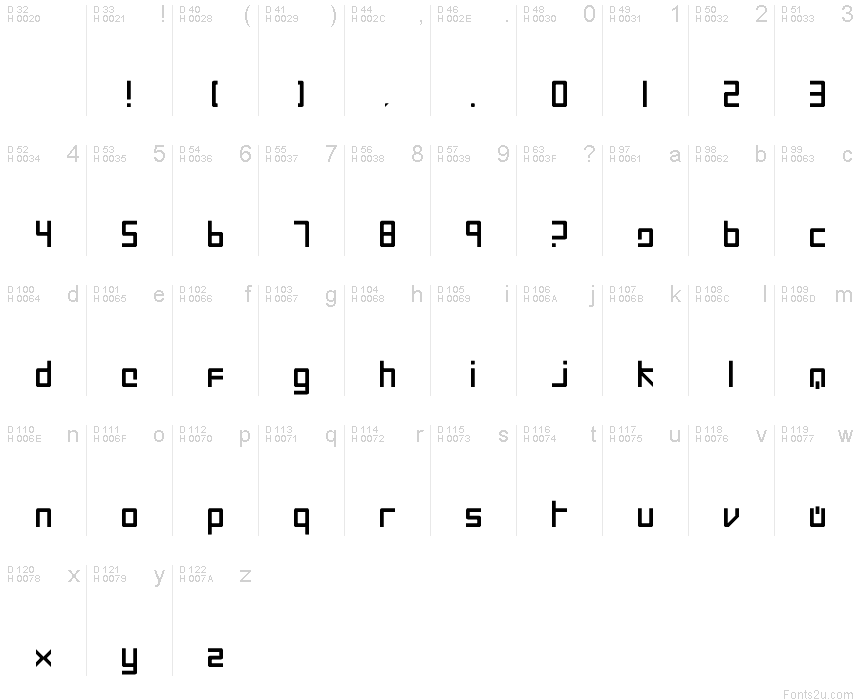
Intercorp II Regular
"Intercorp Two. This font has been made from the ground up, but as an evolution of the experimental Intercorp and subsequent Redux. Letters have been made taller, although at an odd ratio of 4:5, and some made more futuristic. The M and W now have a line going though the middle other than a blob to help distinguish it at lower font sizes, and the whole thing is designed to be as easy to read as possible."
Made in 2009.